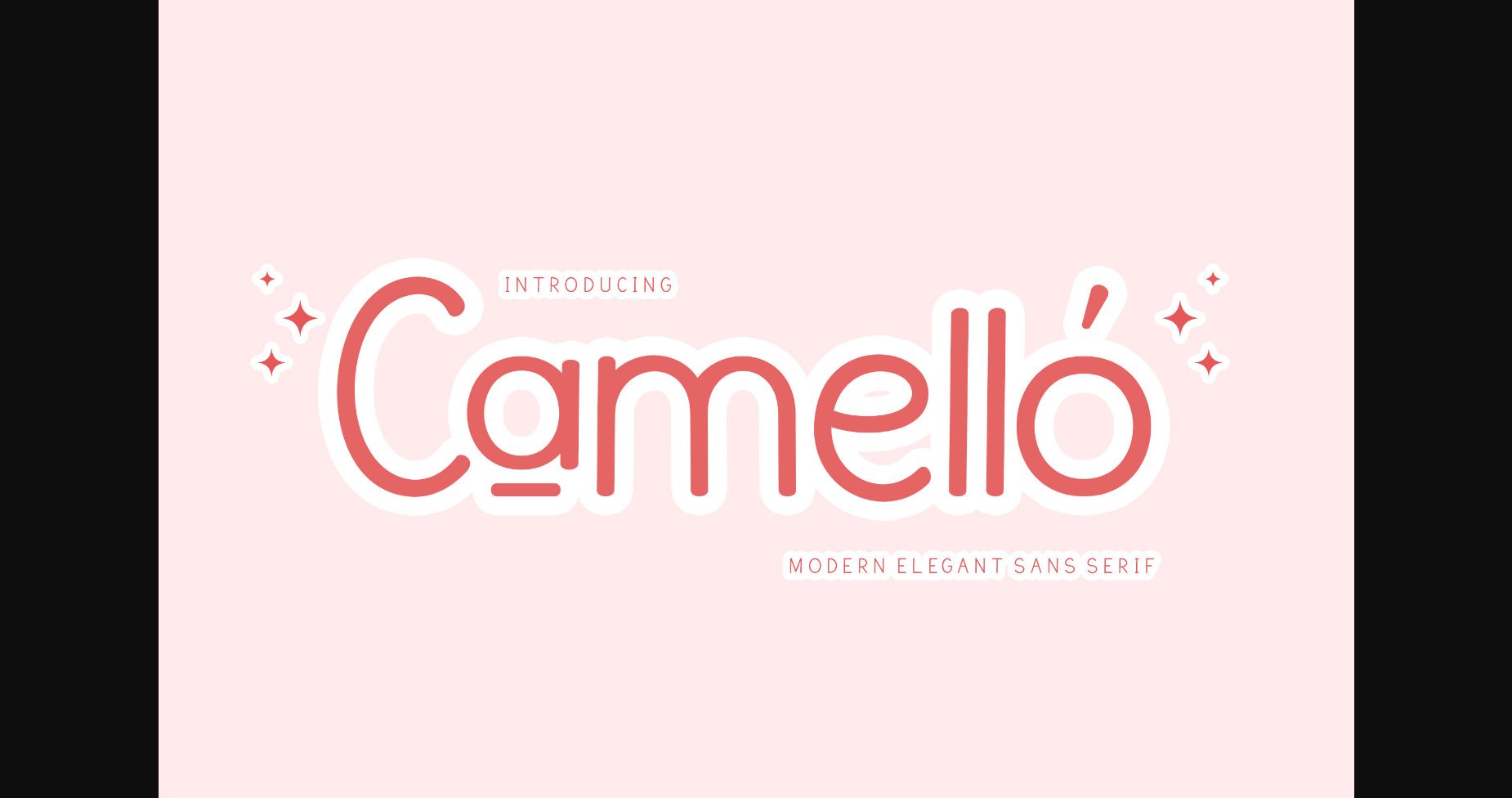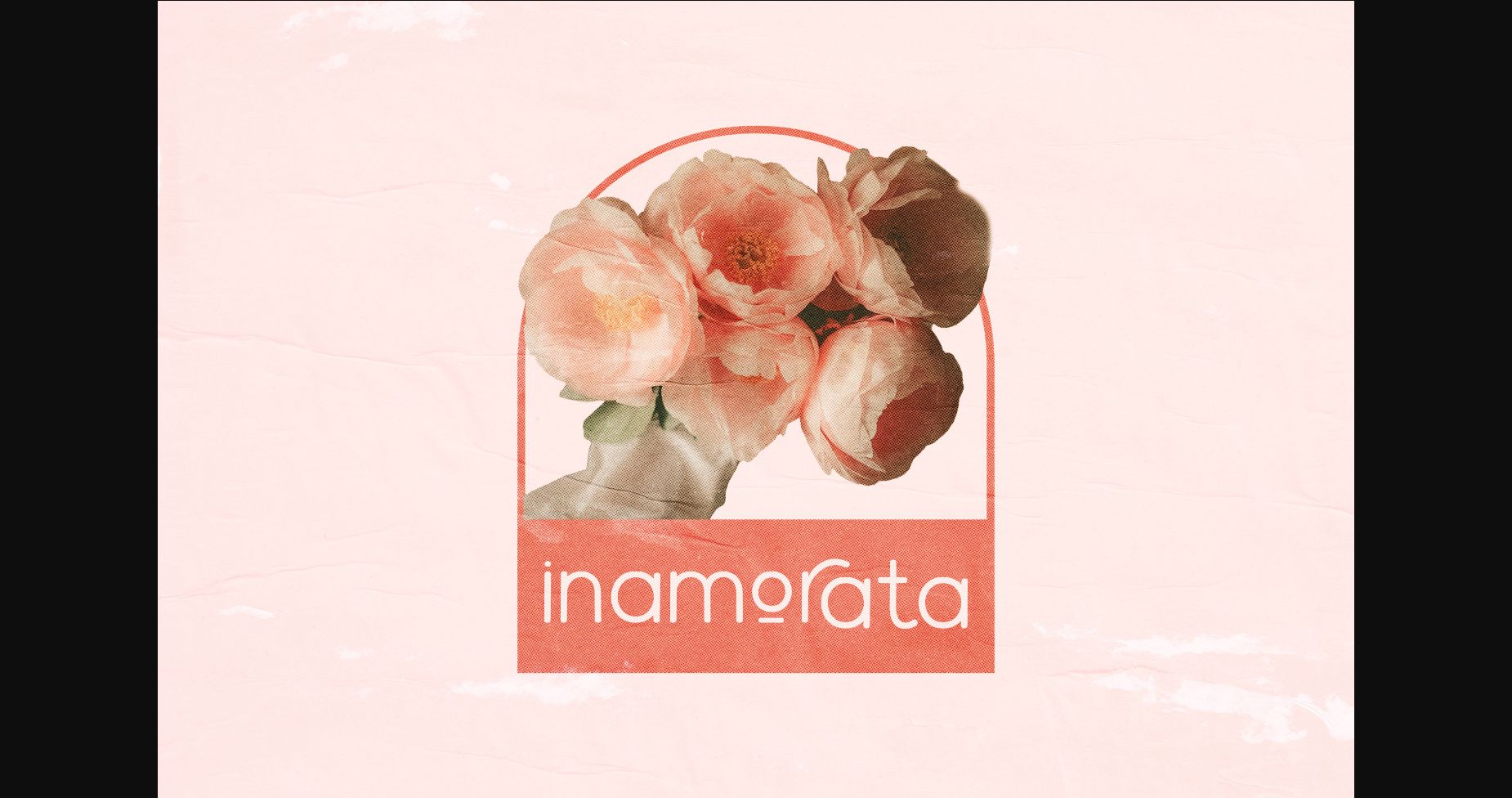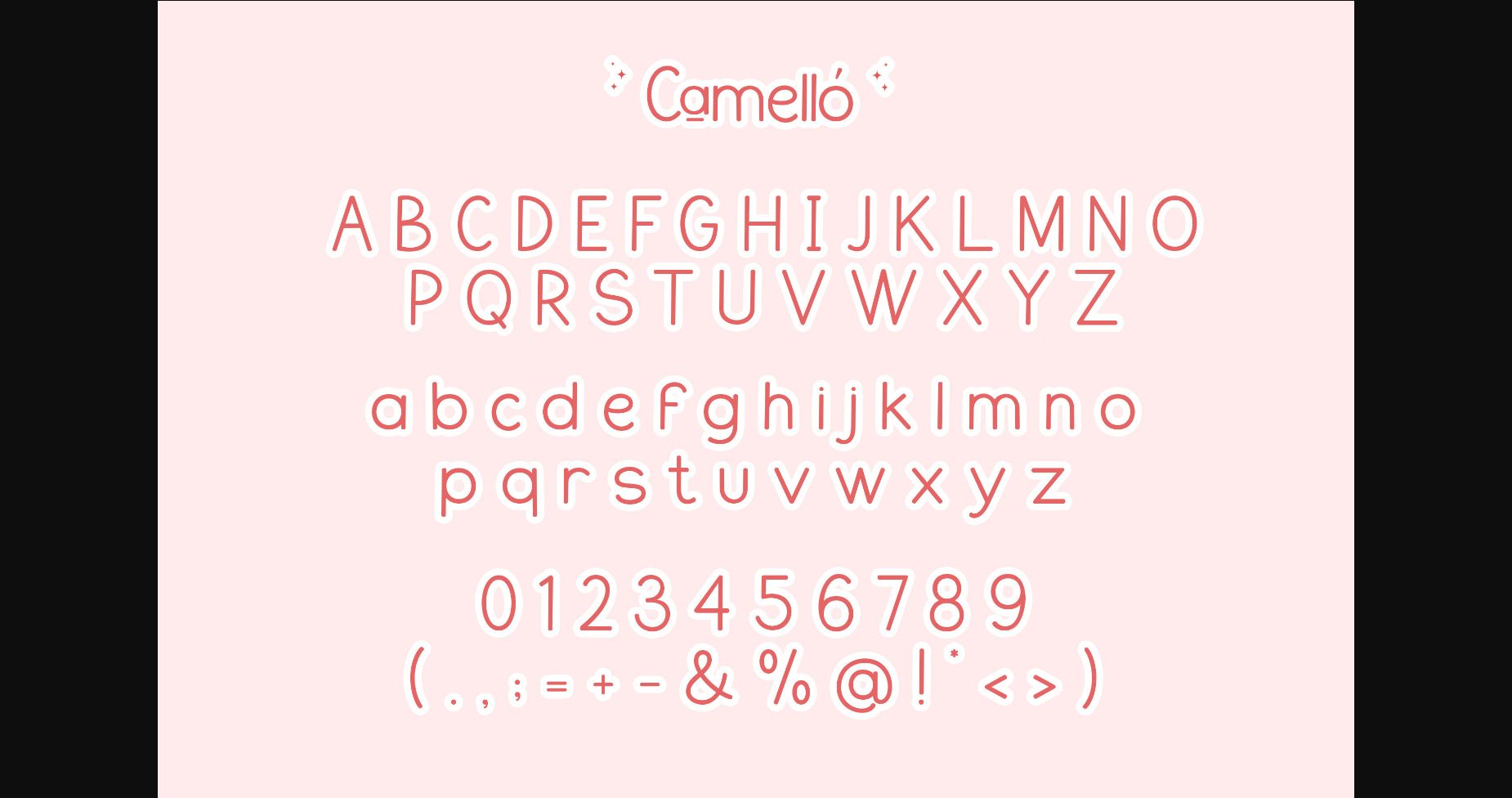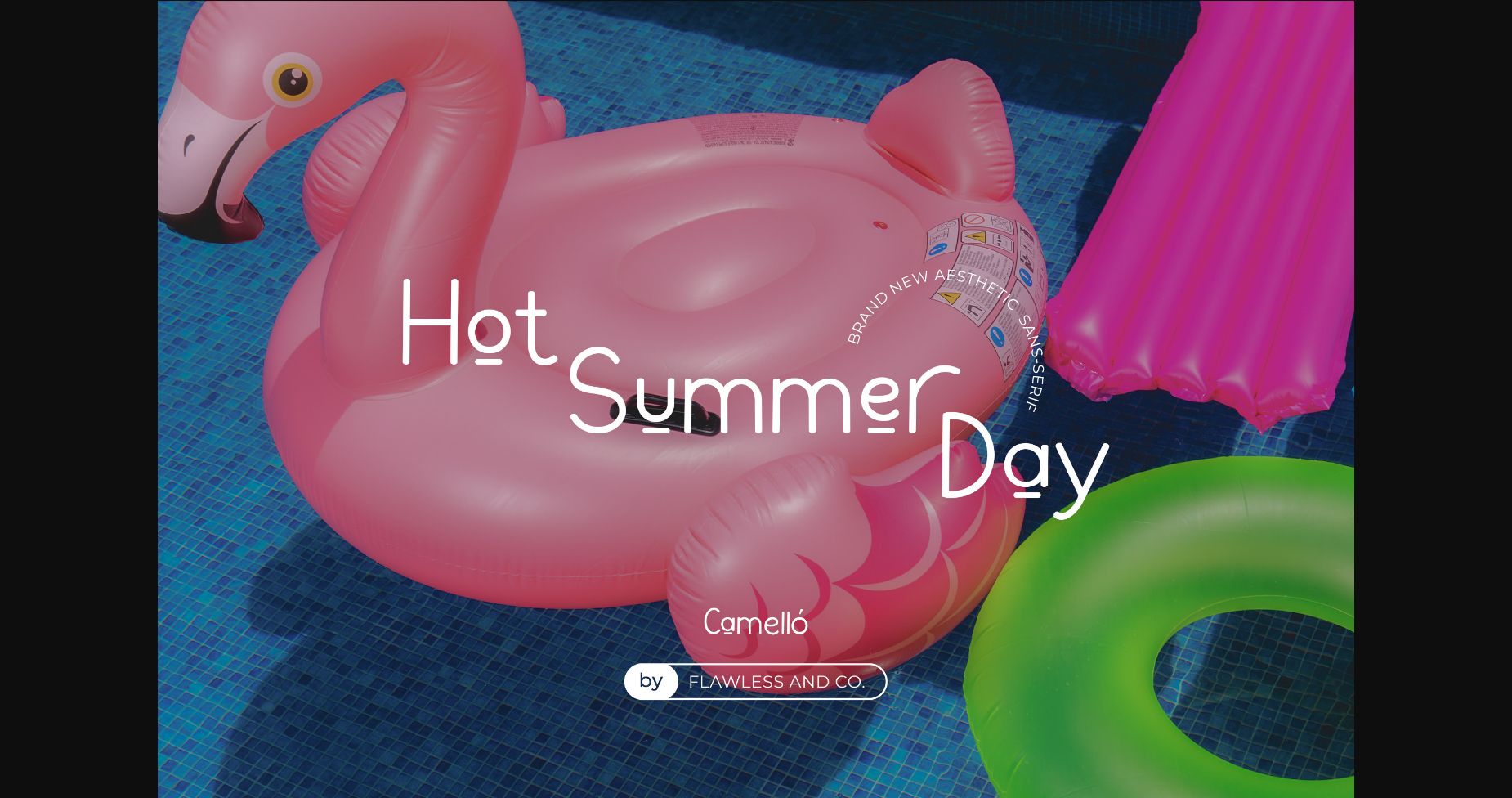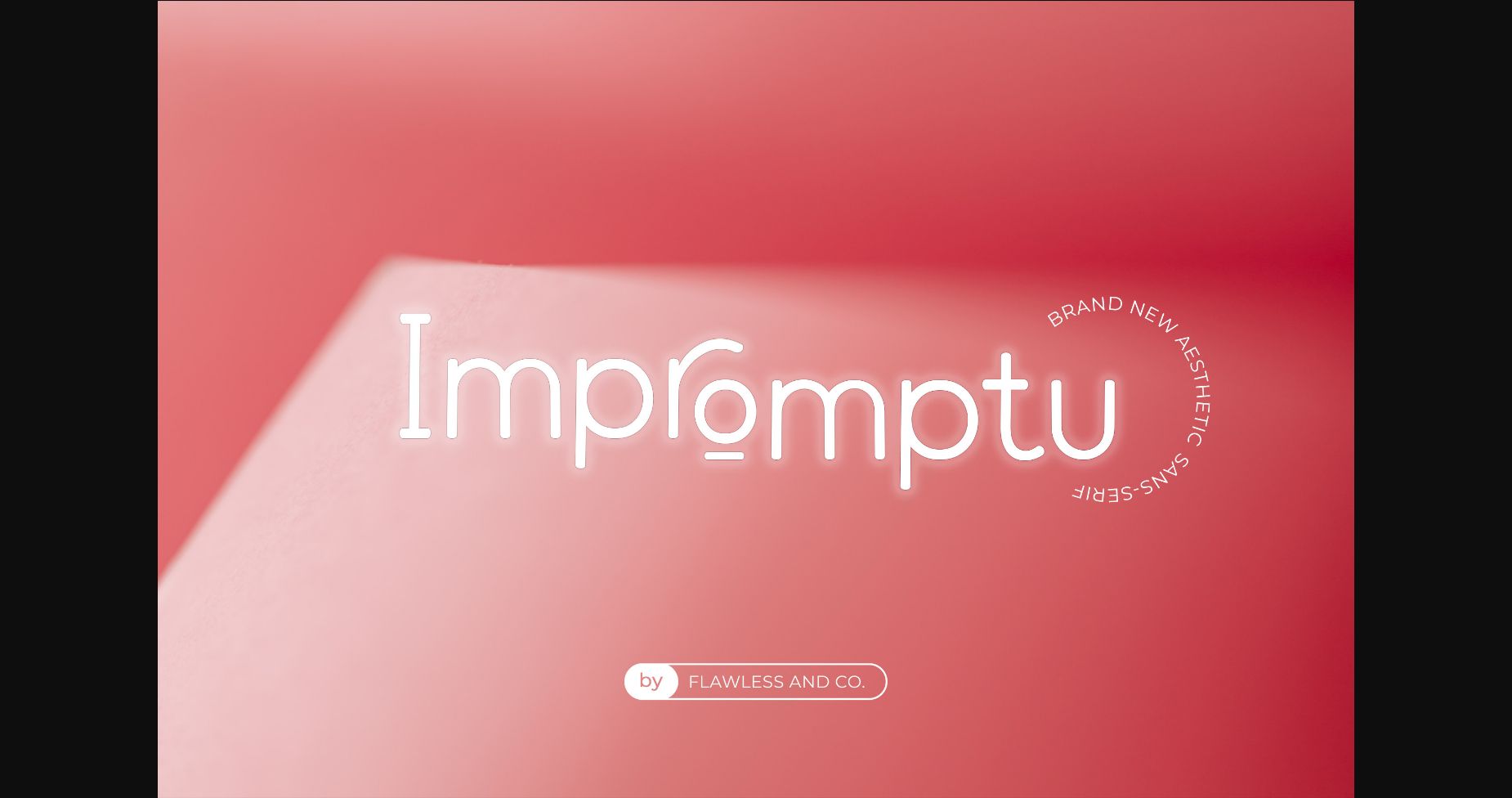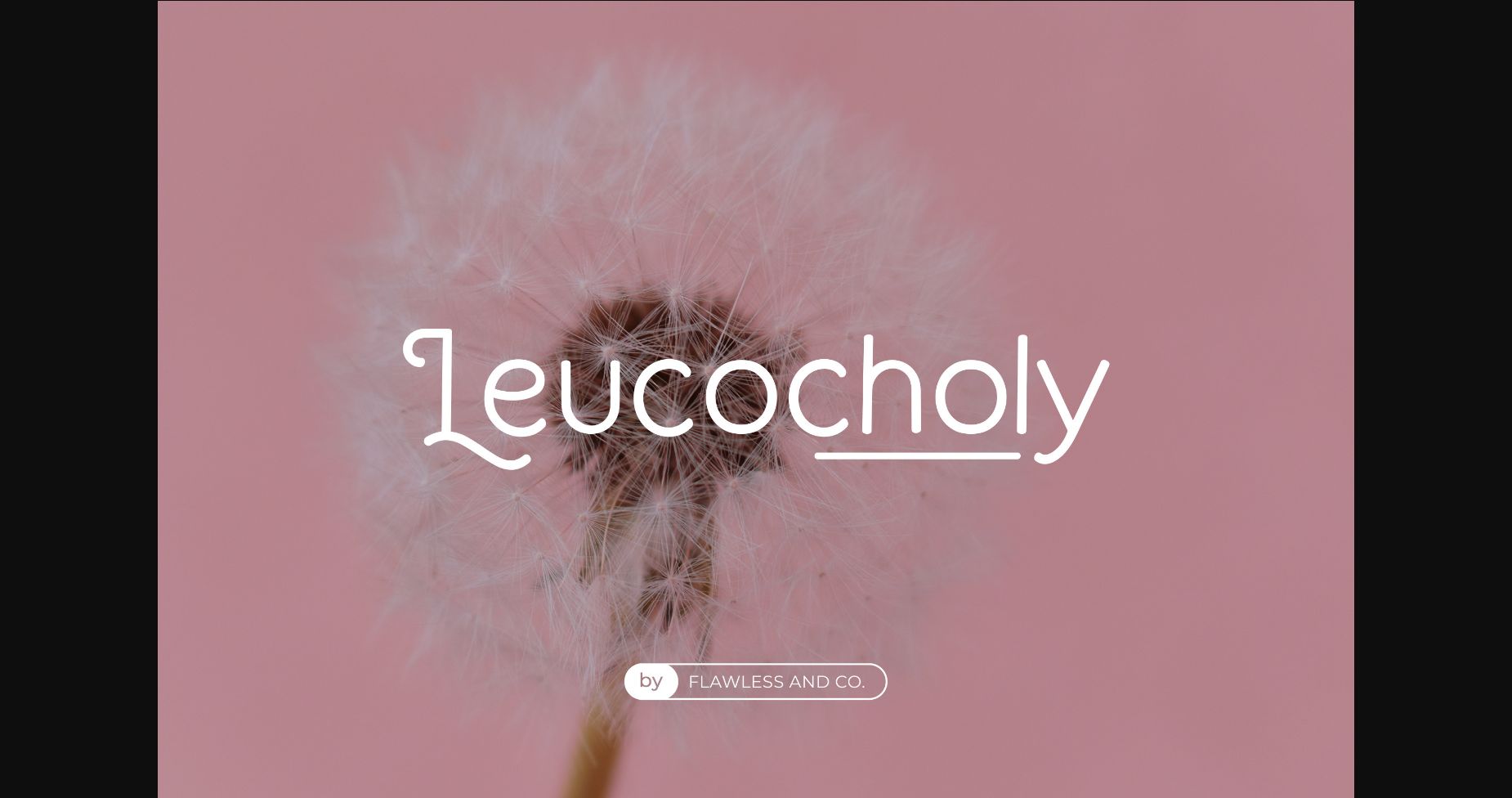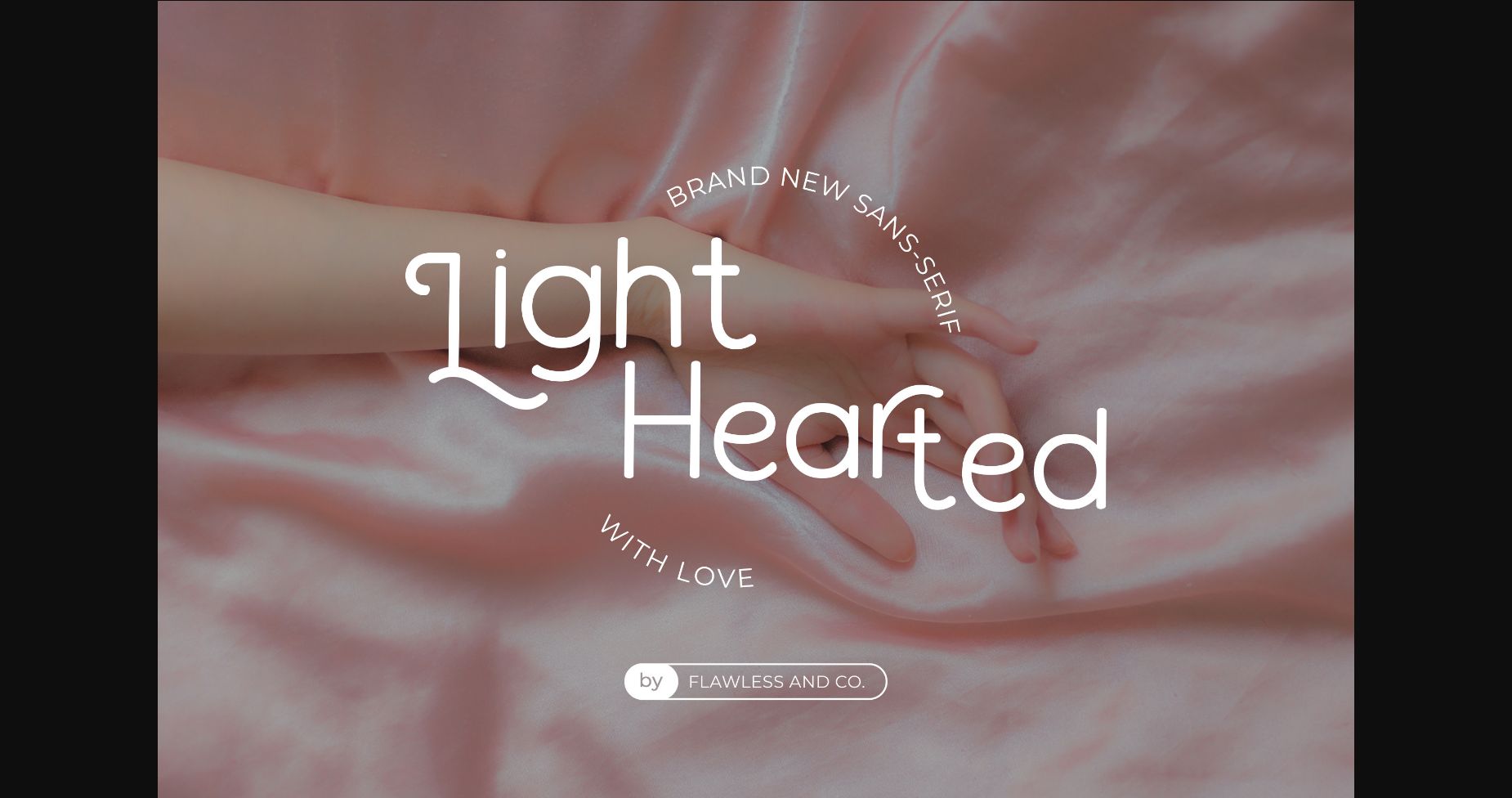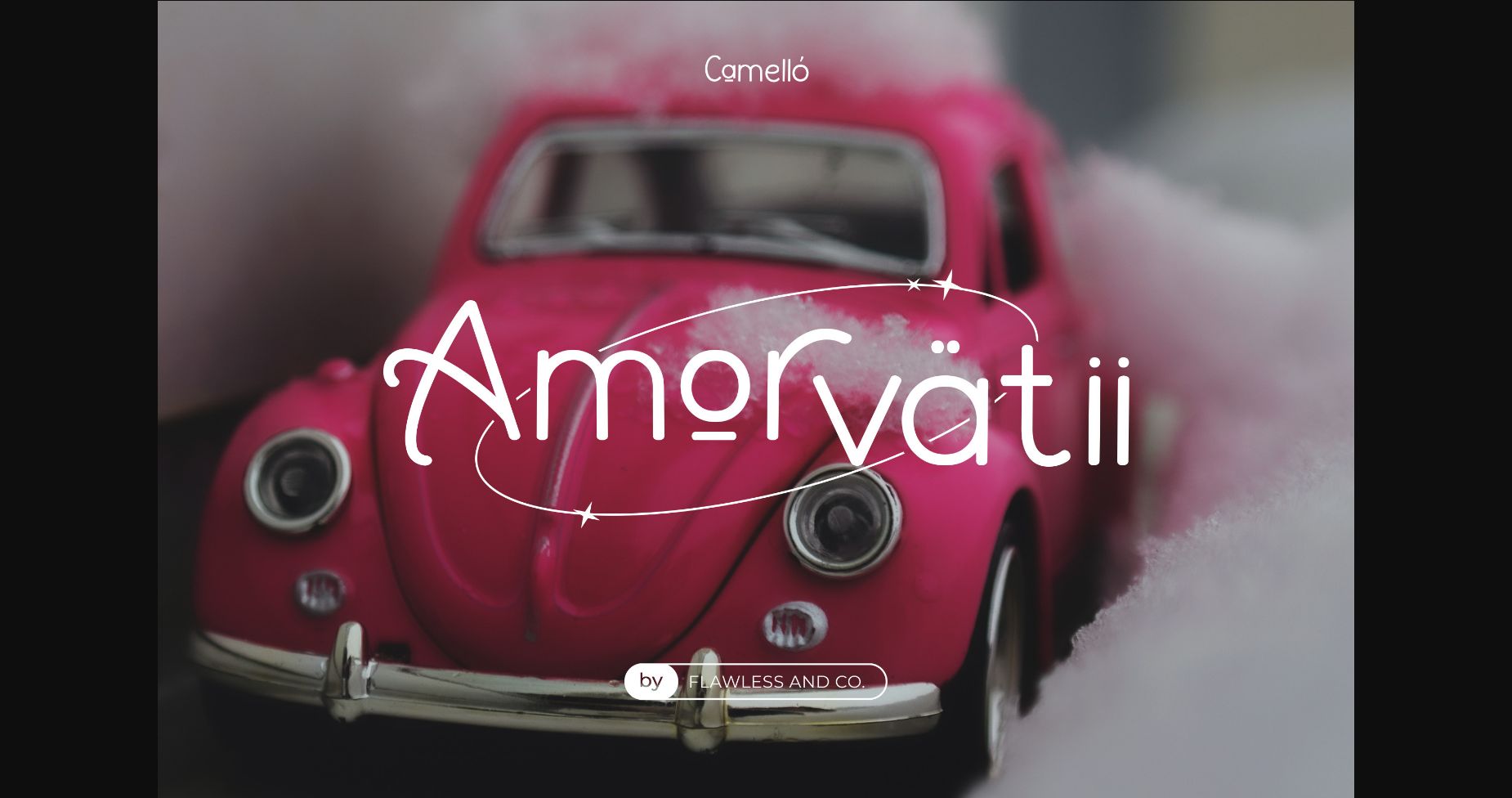
Camello Font
About Camello Font
Introducing “Camello” – a modern sans serif font that blends elegance with a touch of girly charm. With its sleek and contemporary design, Camello is the perfect choice for projects that require a sophisticated yet playful aesthetic.